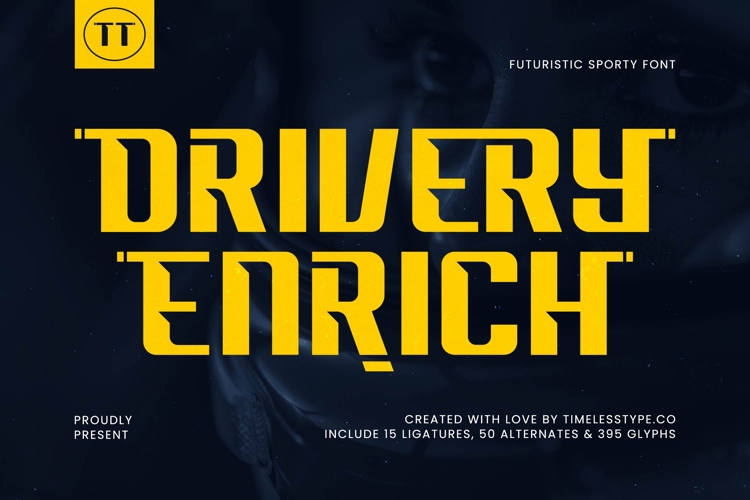
Drivery Enrich - Futuristic Sporty Font
Unleash a new era of design with Drivery Enrich - Futuristic Sporty Font, a typeface engineered for maximum visual impact. Its bold, geometric lines and subtle athletic flair command attention, imbuing any project with a sense of speed, strength, and innovation. This font is meticulously crafted to convey a modern, dynamic aesthetic, making it an indispensable asset for forward-thinking brands.
Elevate your visual communication with a font truly perfect for high-impact branding. Drivery Enrich - Futuristic Sporty Font excels in applications demanding energy and precision, from captivating athletic apparel and gaming interfaces to assertive automotive marketing and innovative digital media headlines. Its unique construction provides the perfect balance of readability and striking character.
With its extensive multilingual support, Drivery Enrich - Futuristic Sporty Font adapts seamlessly across global markets, making it incredibly versatile for international projects. Beyond its core appeal, the font boasts a comprehensive set of ligatures and alternates, providing designers with unparalleled creative freedom and ensuring linguistic consistency.